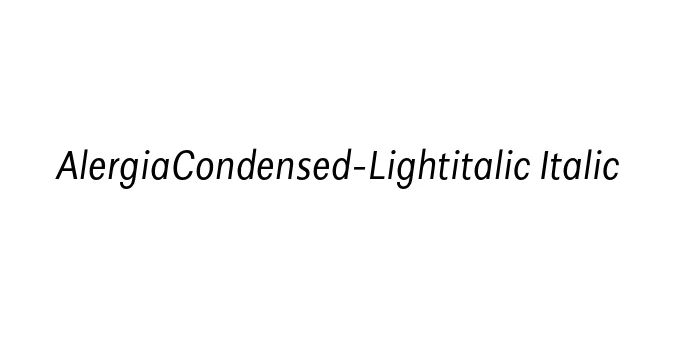
AlergiaCondensed-Lightitalic Italic
Designed by Mateusz Machalski
| Category | Sans Serif / Condensed |
| Designer | Mateusz Machalski |
Alergia Condensed Light Italic is a contemporary hybrid typeface designed by Mateusz Machalski, which seamlessly blends the characteristics of a linear grotesque with expressive, geometric shapes. This specific weight offers a sophisticated, slender profile that maintains exceptional legibility while introducing a dynamic, slanted energy to any layout. Its architecture is defined by tight tracking and a generous X-height, making it a powerful tool for modern digital environments and high-end print media.
As a crucial part of the expansive Alergia superfamily, the condensed variant was meticulously crafted to solve the problem of limited horizontal space without losing the font's distinct personality. The Light Italic version features subtle ink traps and unique character construction that ensures clarity at various scales. It strikes a rare balance between technical precision and humanist warmth, providing designers with a versatile asset for sophisticated branding, editorial headers, and minimalist interface designs.
AlergiaCondensed-Lightitalic Italic Best Uses
Perfect for magazines, journals, and long-form digital articles where style is paramount.
Excellent for tall, impactful headings where horizontal space is at a premium.
Provides clear and legible navigation menus for dense mobile interface elements.
Creates a distinctive, professional look for modern corporate identities and tech startups.